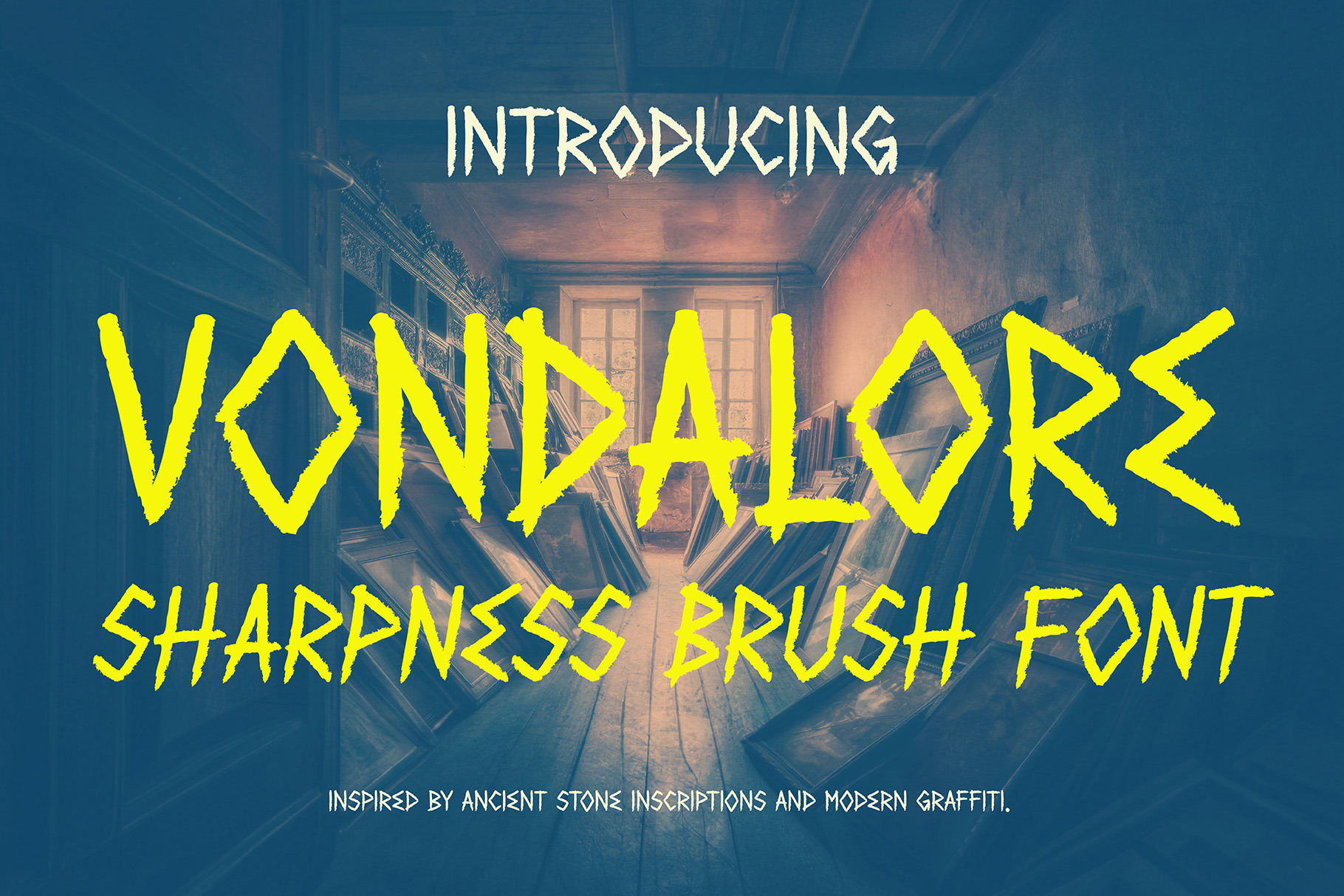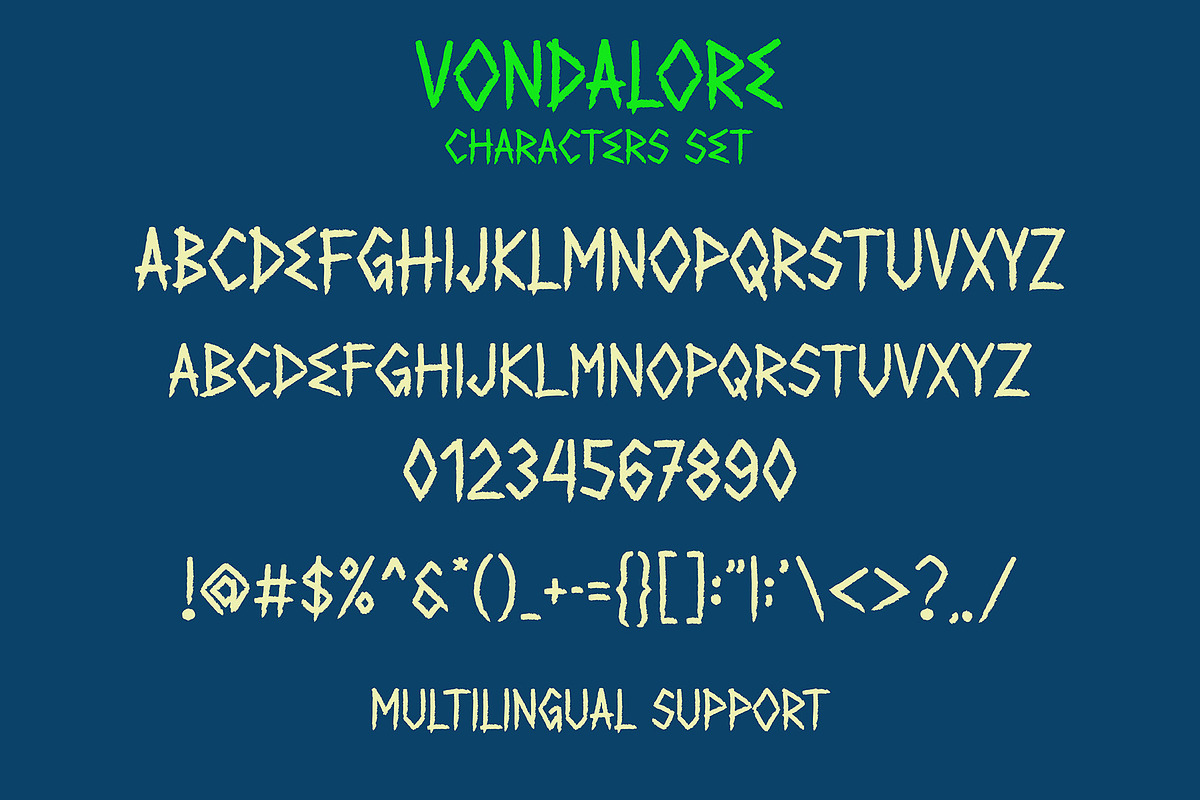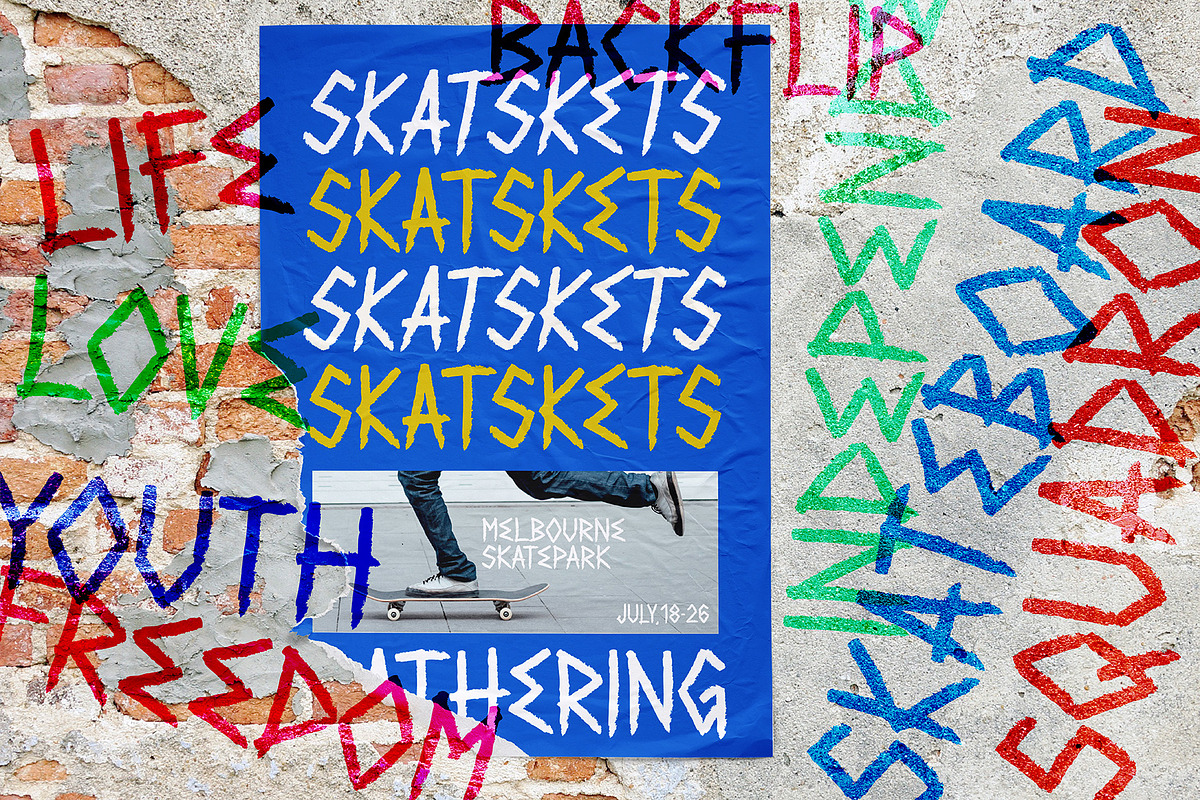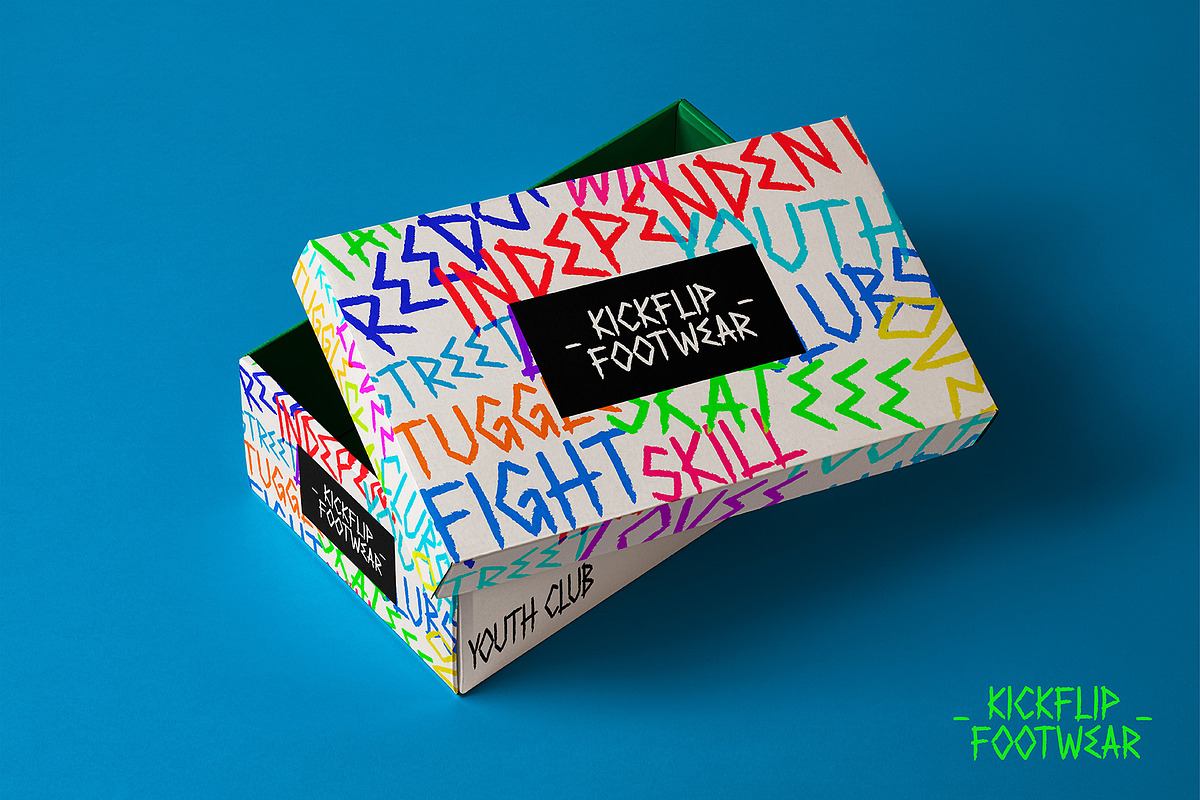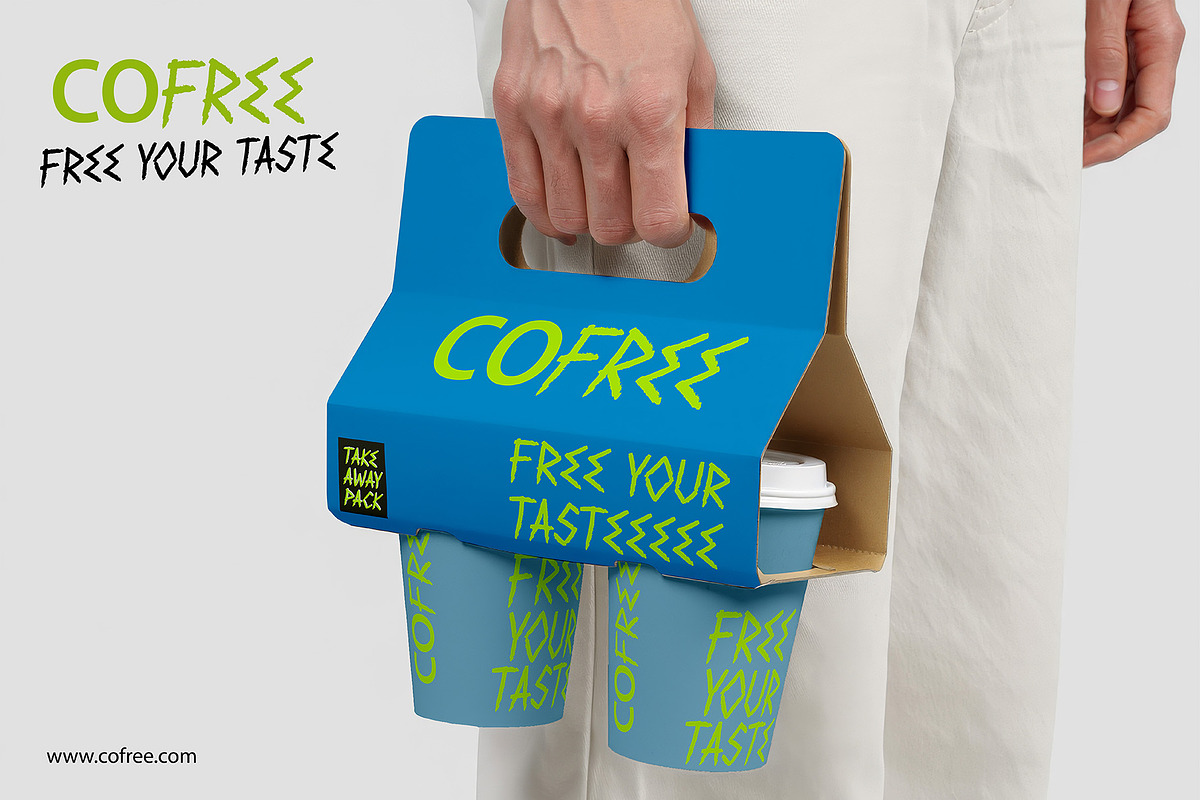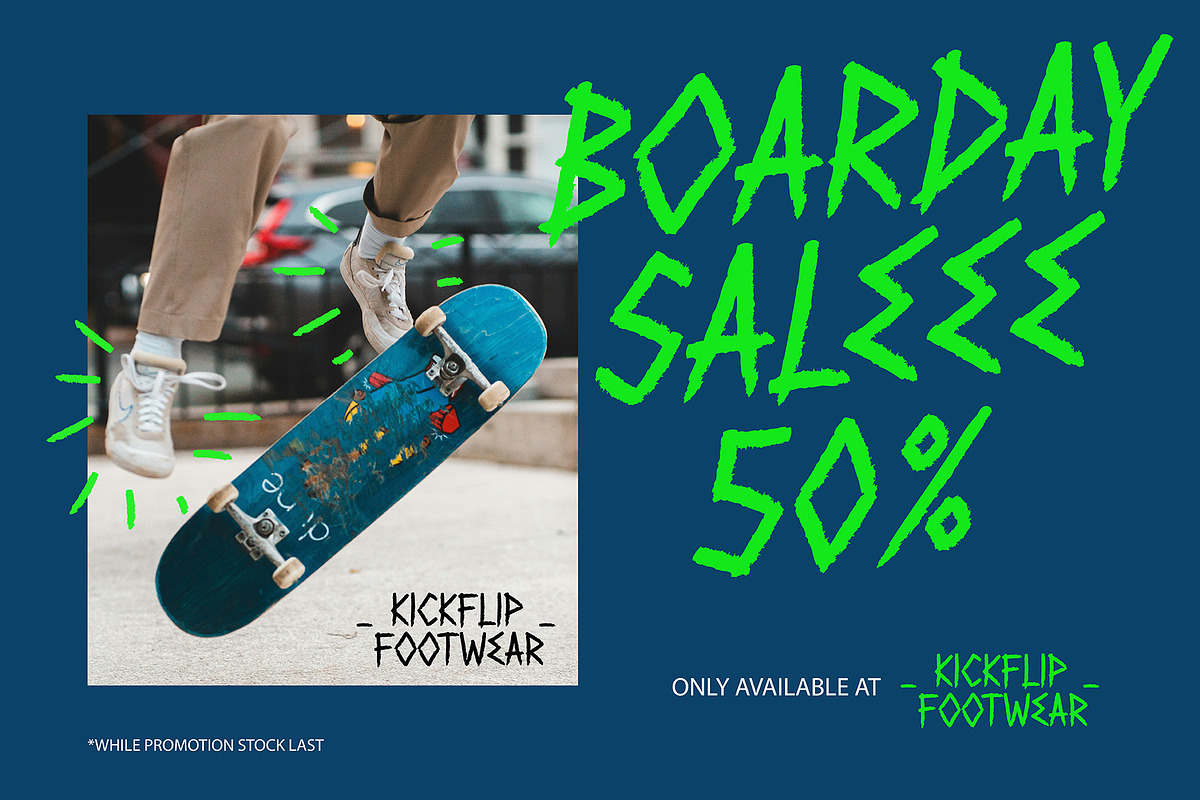
VT Vondalore Sharpness Brush Font
Vondalore Sharpness Brush Font is a bold and expressive display brush font that captures the raw energy of sharp, rigid strokes inspired by street graffiti culture and the primitive inscriptions of the stone age. This font blends rebellious urban expression with ancient, rough carving aesthetics—resulting in a typeface that feels wild, free, youthful, and full of struggle.
Featuring aggressive curves and angular brush movements, Vondalore delivers a powerful visual impact. The authentic brush texture and visible hand-painted strokes give each letter a raw, realistic feel, making it perfect for designs that demand strong character and emotional intensity.
Vondalore comes in two styles: Regular and Oblique, offering flexibility for dynamic compositions. With multilingual support, this font is ready for global creative projects. Whether used for streetwear branding, music posters, album covers, sports visuals, graffiti-inspired artwork, or bold editorial headlines, Vondalore Sharpness Brush Font injects unstoppable youthful spirit into every design. Unleash raw expression. Embrace chaos. Let your design fight back with Vondalore.
- Sharp & rigid brush strokes with graffiti influence
- Inspired by street graffiti and ancient stone inscriptions
- Authentic hand-painted brush texture
- Two styles: Regular & Oblique
- Perfect for youthful, rebellious, and energetic designs